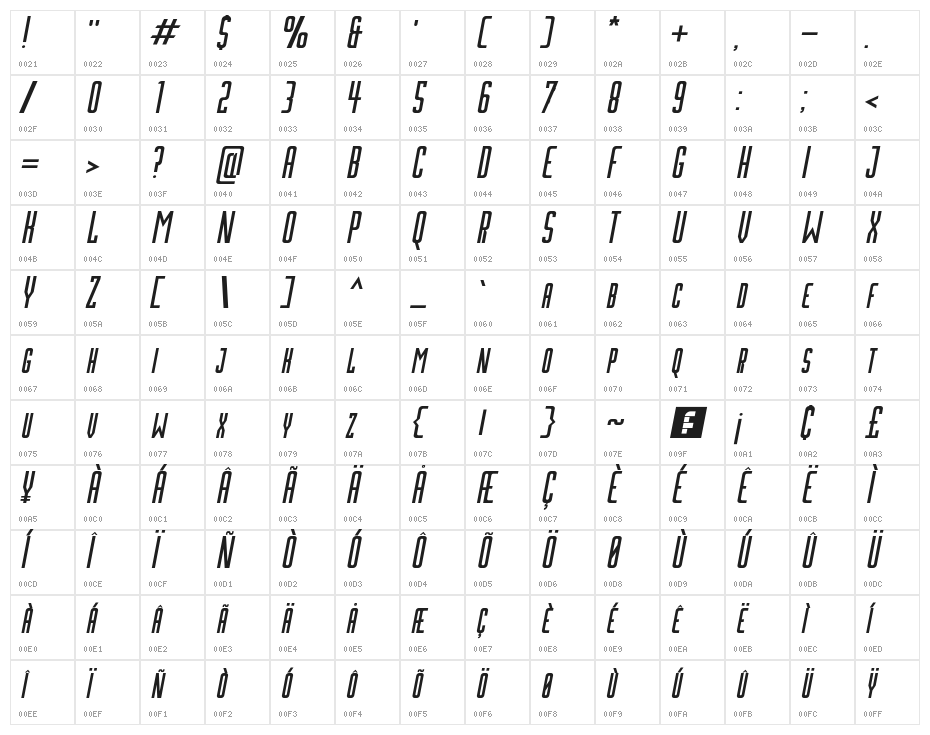
Inceptia Small Caps Italic Font
Inceptia Small Caps Italic Description
This font features a dynamic and modern design with a distinct italic slant, giving it a sense of motion and energy. The characters are tall and narrow, with sharp angles and clean lines that contribute to its sleek appearance. The uppercase letters are bold and commanding, while the lowercase letters maintain the same energetic style. The numerals are consistent with the overall design, ensuring readability and uniformity. Special characters are crafted with the same attention to detail, making this font versatile for various applications.